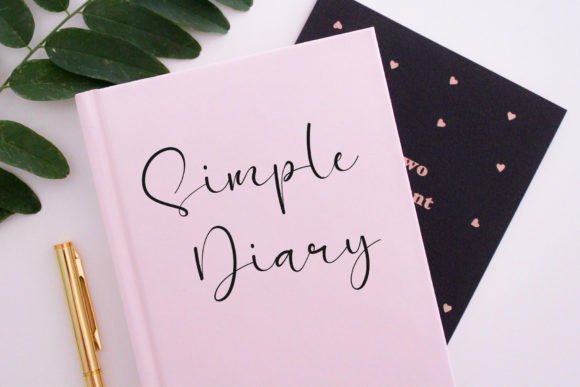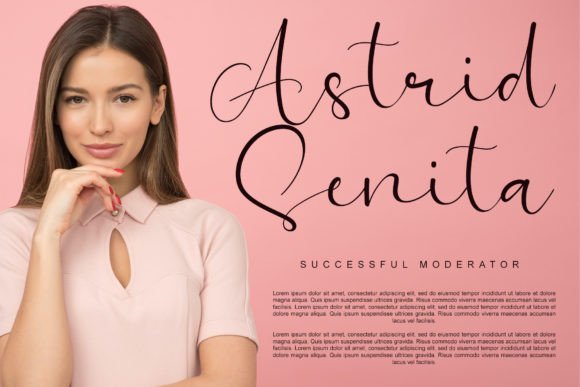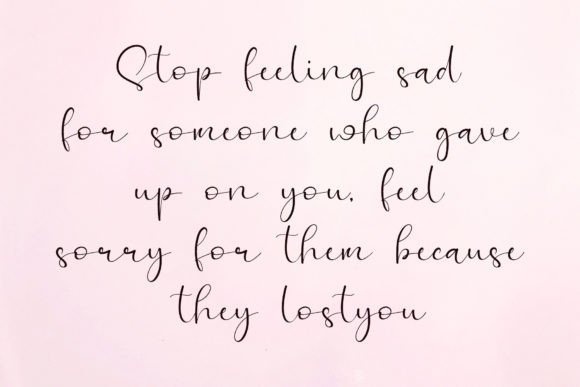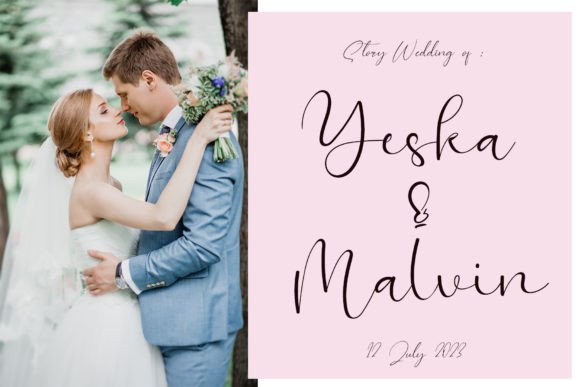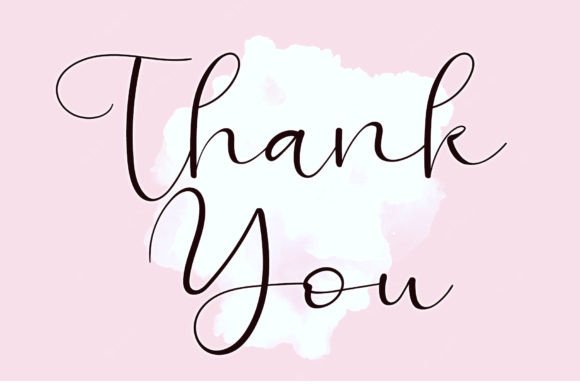
Introduction to Hastily Font
As a designer, there’s nothing quite like the thrill of bringing a creative project to life. It’s that moment when the perfect font is found, and all the elements come together in harmony – a symphony of style and elegance. For me, that moment often involves a delicate, flowing handwritten font that adds a touch of sophistication to any design. And that’s exactly what you’ll find with the Hastily Font, a high-quality, elegant script that’s perfect for designers looking to add a personal touch to their work.
With its transparent background and PUA encoded glyphs, the Hastily Font is a valuable design resource that’s easy to use and customize. Whether you’re working on a personal project or a commercial design, this free download is sure to become a trusted companion in your creative journey. In this article, we’ll delve into the world of the Hastily Font and explore why it’s a must-have for any designer looking to elevate their work to the next level.
Key Features of Hastily Font
- High-quality design: This font is crafted with attention to detail, ensuring a professional and polished look for any project.
- Transparent background: Hastily Font features a transparent background, allowing for seamless integration with other design elements.
- High-resolution design: With a resolution of 300 DPI, Hastily Font is ideal for use in high-resolution print projects or digital designs.
- Unique characteristics: The font’s unique blend of modern and vintage elements makes it an excellent choice for designers looking to add a touch of personality to their creative projects.
Honest Review: Hastily Font
As a designer, I’m always on the lookout for high-quality design resources to elevate my creative projects. Recently, I stumbled upon the Hastily Font, and I must say, it’s been a game-changer. ✨
Here are some of the things I like about the Hastily Font:
- High-quality font with a transparent background, making it perfect for layered designs
- Wide range of styles and weights, offering endless creative possibilities
- ⚠️ Not suitable for very large-scale designs, as the font might become distorted
Overall, I’m thoroughly impressed with the Hastily Font. It’s a fantastic addition to any designer’s toolkit, and I highly recommend it for any creative project. With its high quality, transparent background, and free download, it’s a design resource that’s hard to pass up. ✨
Hastily Font
Tips for Getting the Most Out of Hastily Font
Use the Hastily Font on a transparent background to create a high-quality design element that stands out from the rest. Experiment with different font sizes and colors to add depth and interest to your creative project.